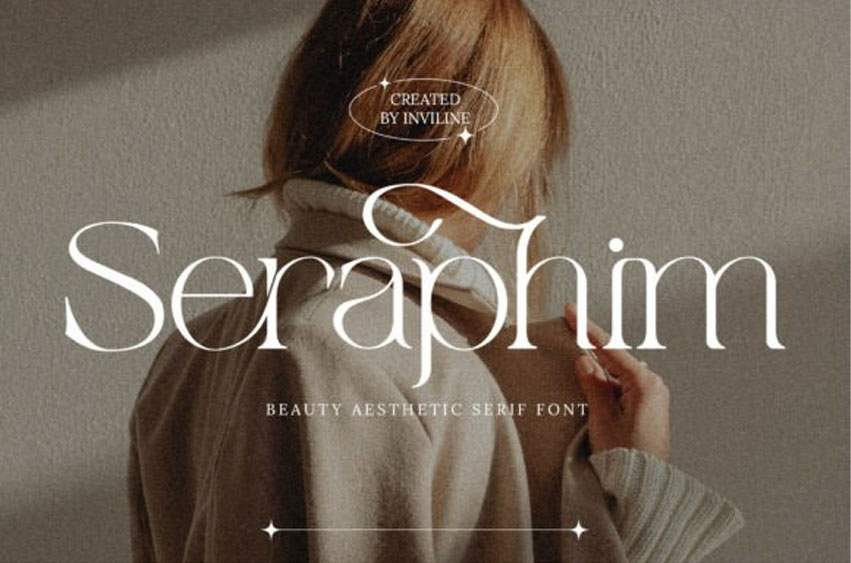
Seraphim Font
Seraphim Font is a refined serif typeface inspired by classic beauty and modern elegance. With high contrast strokes, graceful curves, and ethereal details, Seraphim is perfect for editorial layouts, fashion branding, wedding invitations, beauty packaging, and aesthetic Instagram quotes.
Each letterform evokes a feeling of softness and sophistication, crafted to elevate your designs with a divine presence. Available in OTF and TTF formats.